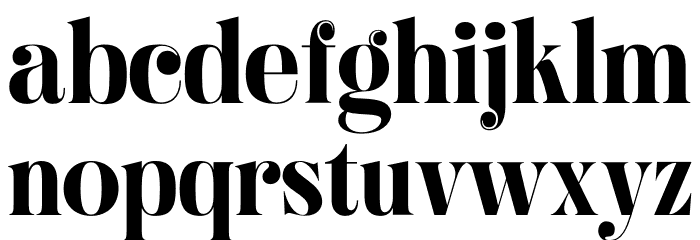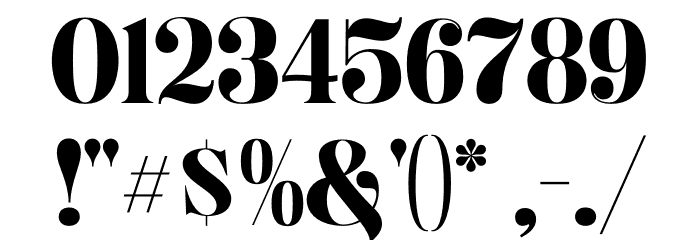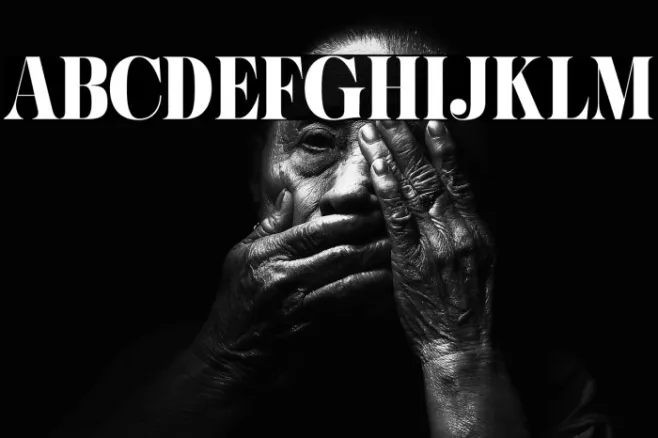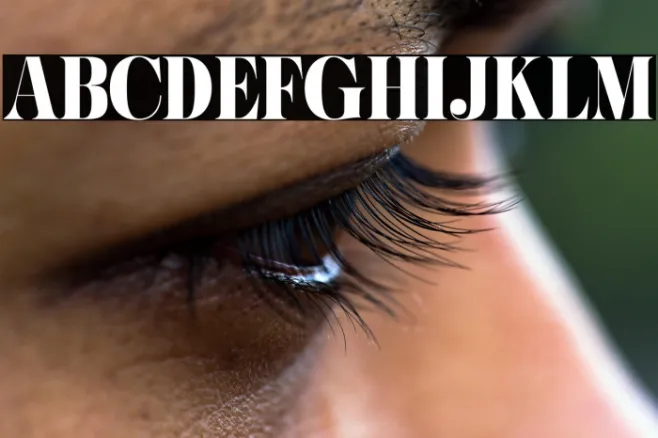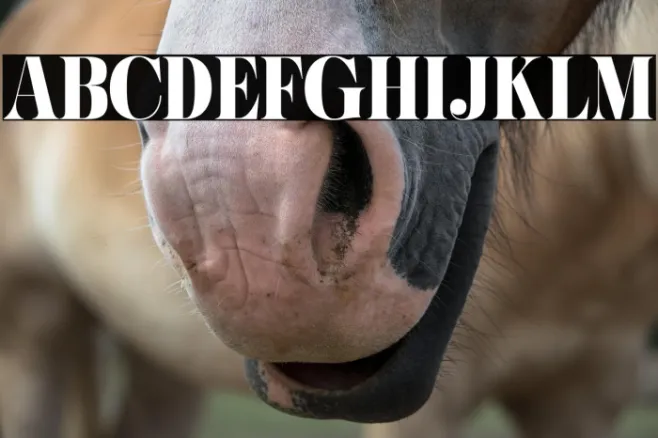
Hugiller DEMO Font
This font features a bold and dramatic style with high contrast between thick and thin strokes, giving it a striking and elegant appearance. The serifs are pronounced and add a touch of sophistication, making it suitable for high-impact designs. The uppercase letters are particularly bold, while the lowercase letters maintain a consistent style with unique flourishes on certain characters. The numerals are equally bold, ensuring they stand out in any design. Special characters are crafted with the same attention to detail, making this font versatile for various uses.
A bold, high-contrast serif font with dramatic strokes and elegant serifs.
- Font: Hugiller DEMO
- Proposed Projects: Ideal for luxury branding, editorial headlines, fashion magazines, and elegant invitations.
- Category: Serif
- Overall Style: Classic